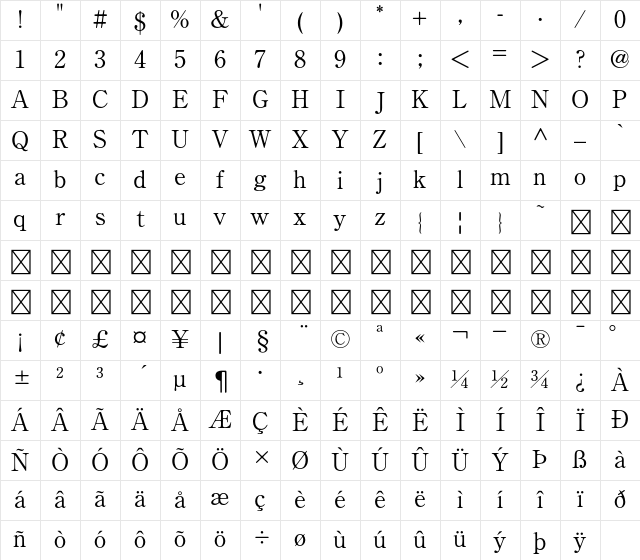
A-OTF A1 Mincho Std Bold
Design Context for A-OTF A1 Mincho Std
A-OTF A1 Mincho Std is a composed and adaptable typeface that performs quietly and consistently across a wide range of design contexts. Its bold stroke weight gives it real presence on the page.